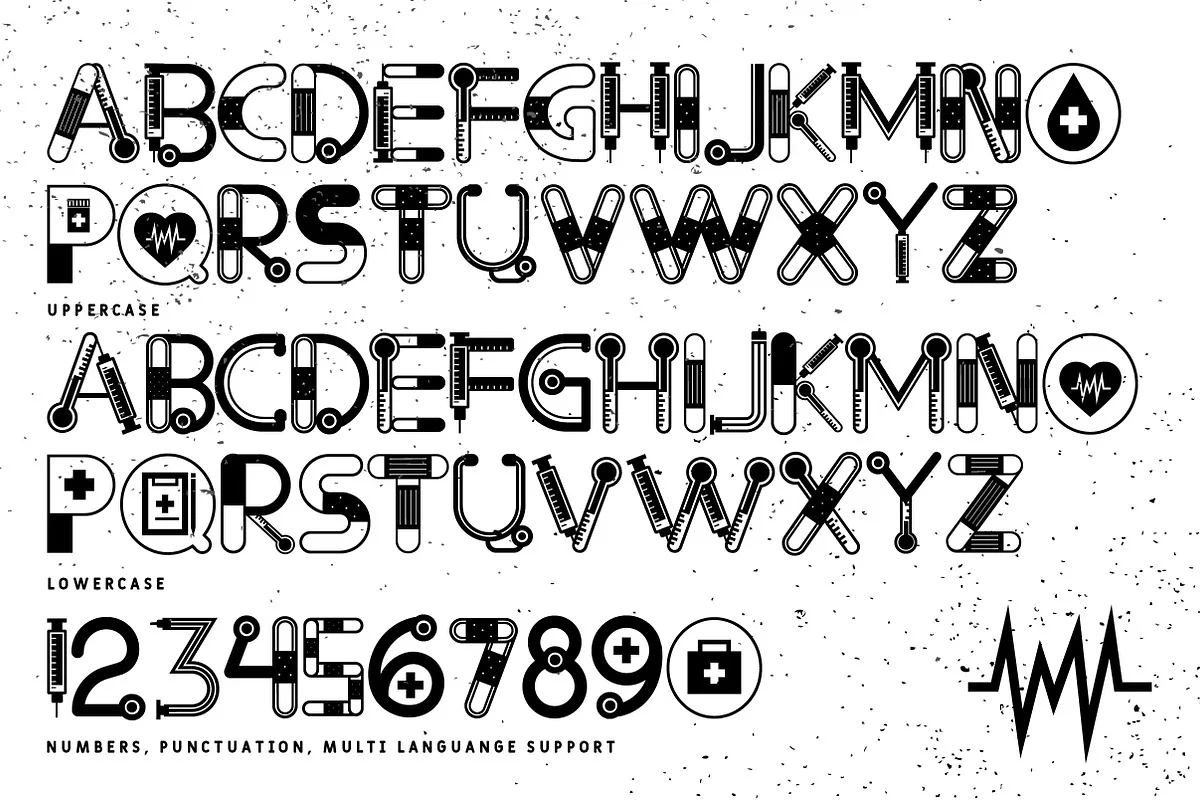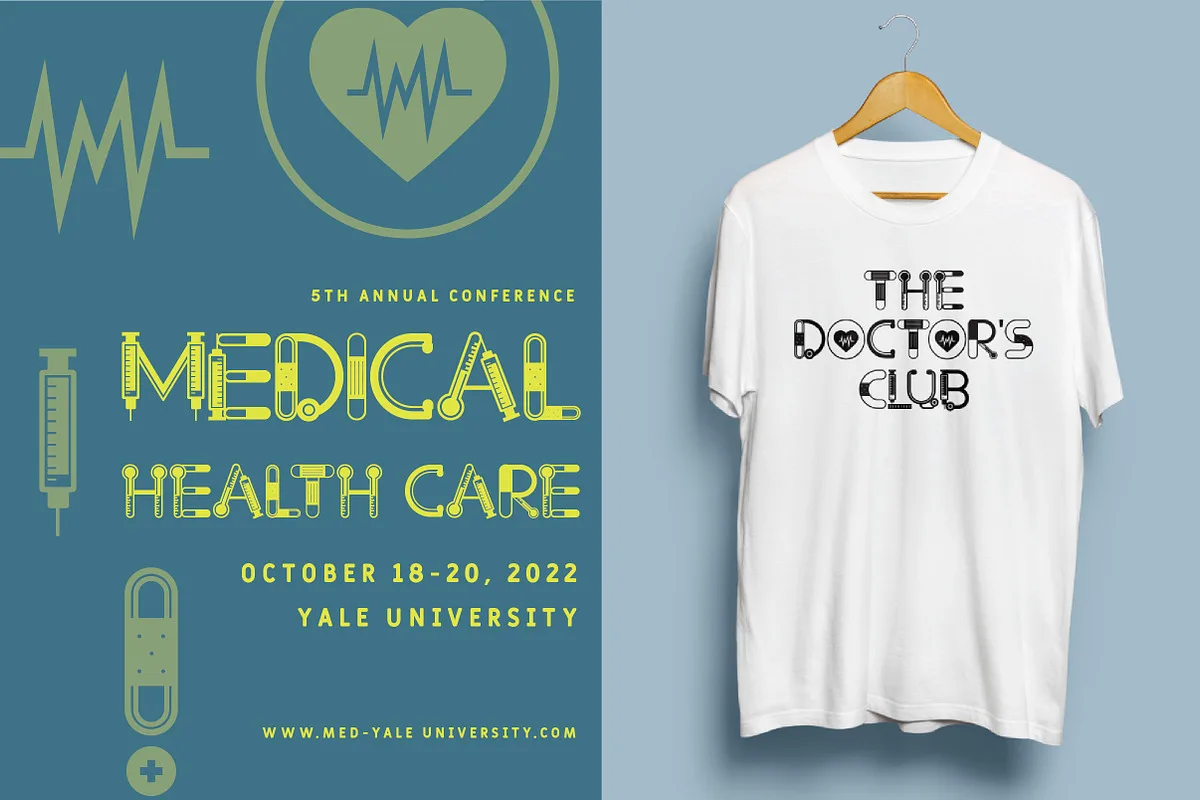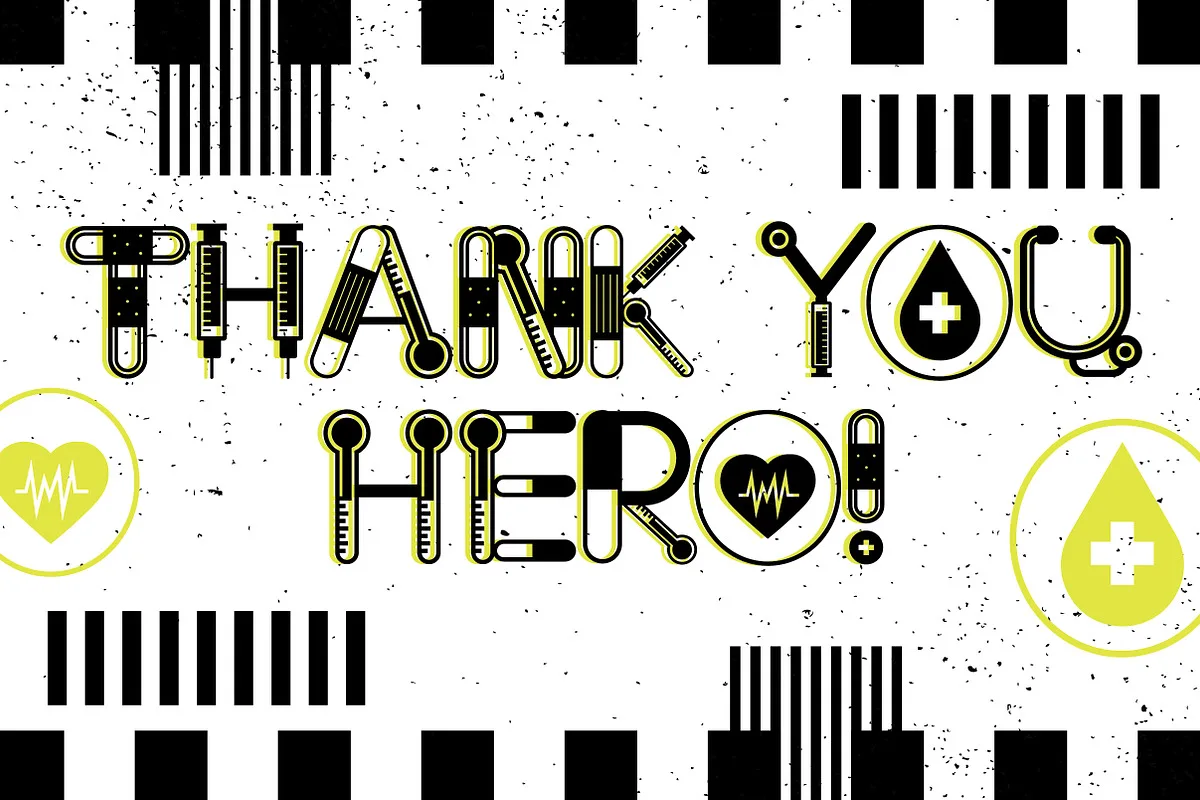
Doctor Font
Doctor is a medical theme display font suitable for medical-related design. Inside you will get both of ‘otf’ and ‘ttf’ format font and also the web font. It is perfect to be a title’s book, on the poster, on the t-shirt, and on many other things. Make your own design with this unique font.